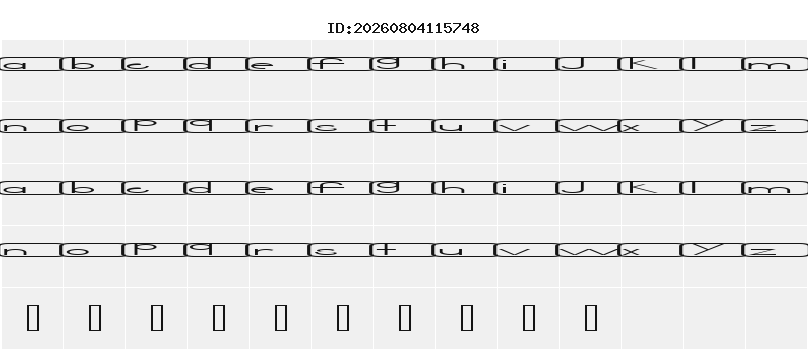
Noir 2 Preview
• Font Name: Noir 2
• Font Style: Wide
• Font ID: Macromedia Fontographer 4.1 Noir 2 Wide
• Full Font Name: Noir 2 Wide
• Version: Second Verson-6/29/99
• PostScript Name: Noir2Wide
• Character Count: 54
About Noir 2.ttf
Noir 2.ttf is a modern, elegant sans-serif font designed for ultimate readability and visual harmony. Perfect for branding, headlines, web design, and print materials.